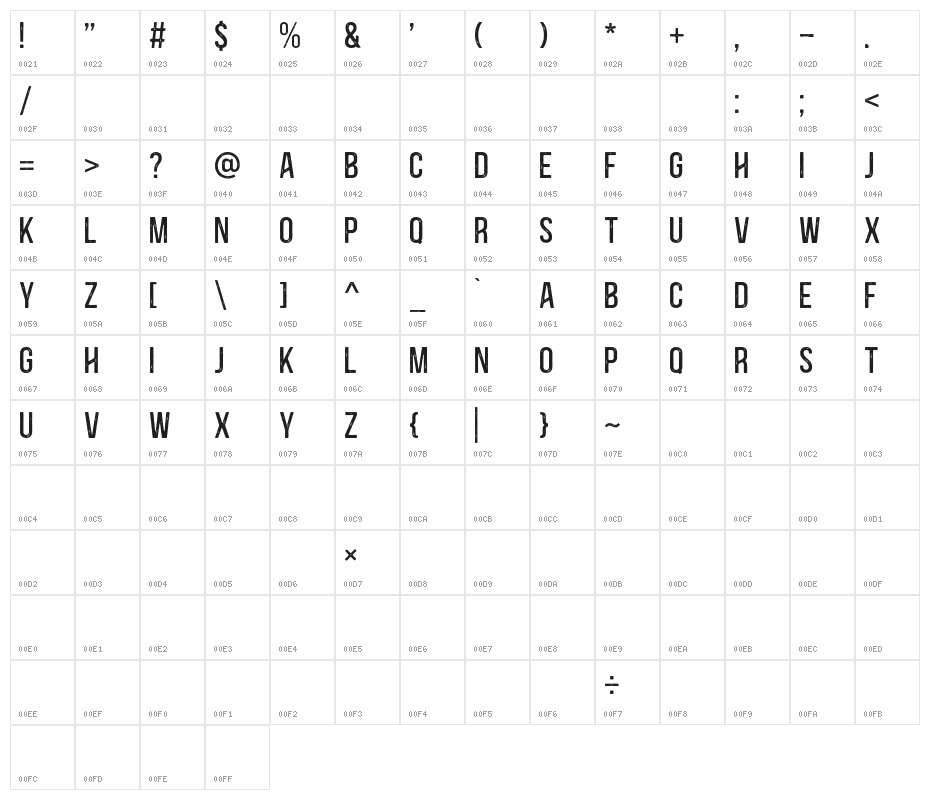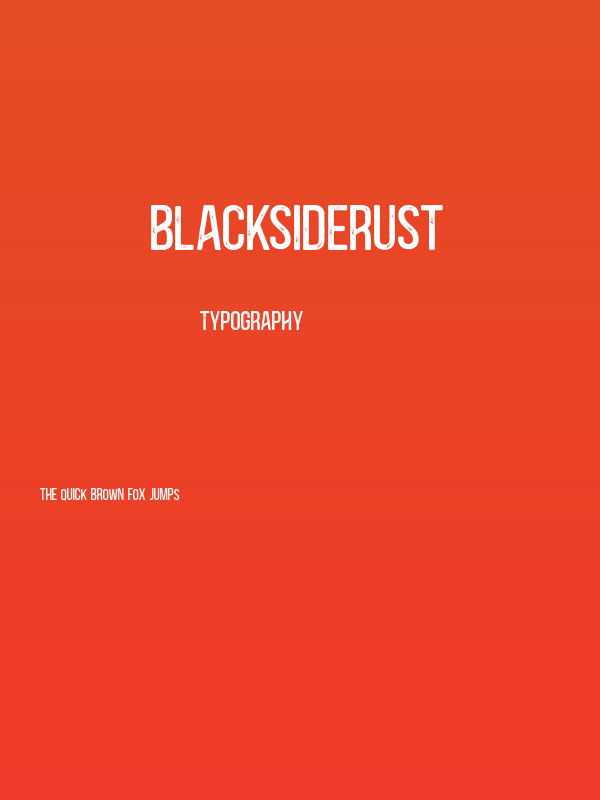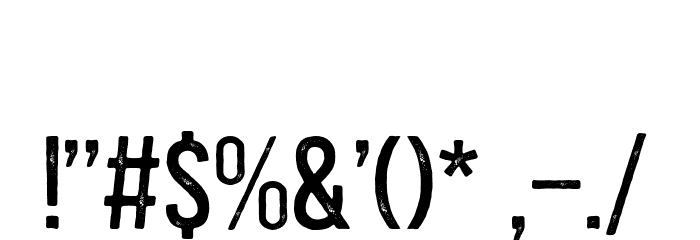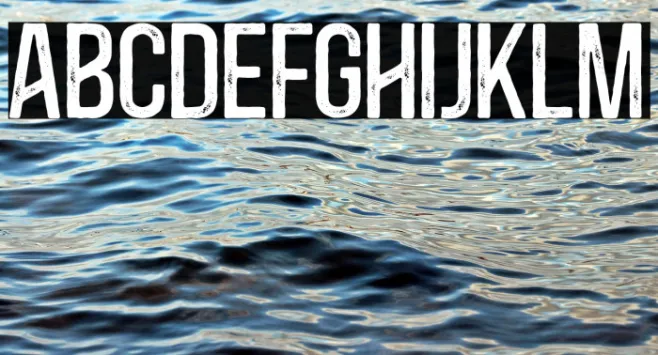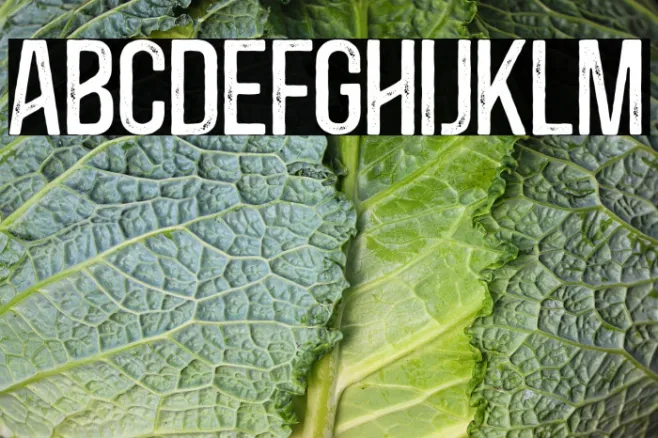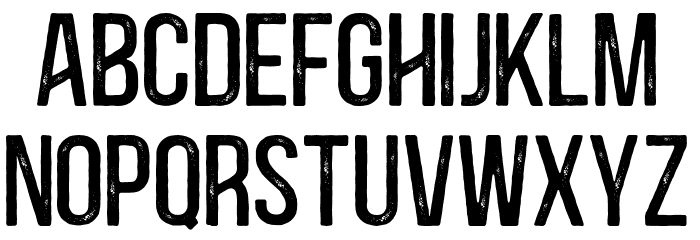
BlacksideRust Font
BlacksideRust Description
This font features a bold, distressed style with a textured appearance that gives it a rugged, vintage feel. The uppercase letters are uniform in height, with a slightly condensed width, creating a compact and impactful look. The characters have a rough, worn texture that adds a sense of age and authenticity, making it ideal for projects that require a rustic or industrial aesthetic. The font includes a full set of uppercase letters, numbers, and a variety of special characters, allowing for versatile use in different design contexts. Its boldness ensures that it stands out, while the distressed detailing adds character and depth.
| Proposed Projects | Ideal for branding, posters, packaging, and any design requiring a vintage or industrial look. |